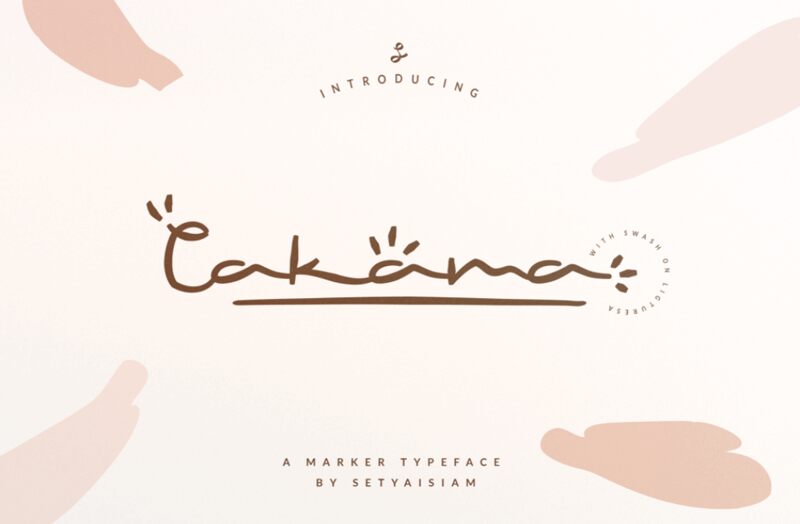
Cakama, the exquisite handwritten font by setyaisiam _type, is the perfect addition to any creative project. Its semi-light weight and extra-expanded width bring a unique flair to any design. Whether it be a wedding invitation, a cookbook cover, or even a logo for your business, Cakama adds a touch of elegance and sophistication. The flowing curves and natural feel of the font make it ideal for anything from branding to social media graphics. With its versatility and creativity-enhancing qualities, Cakama is sure to elevate your designs to the next level.